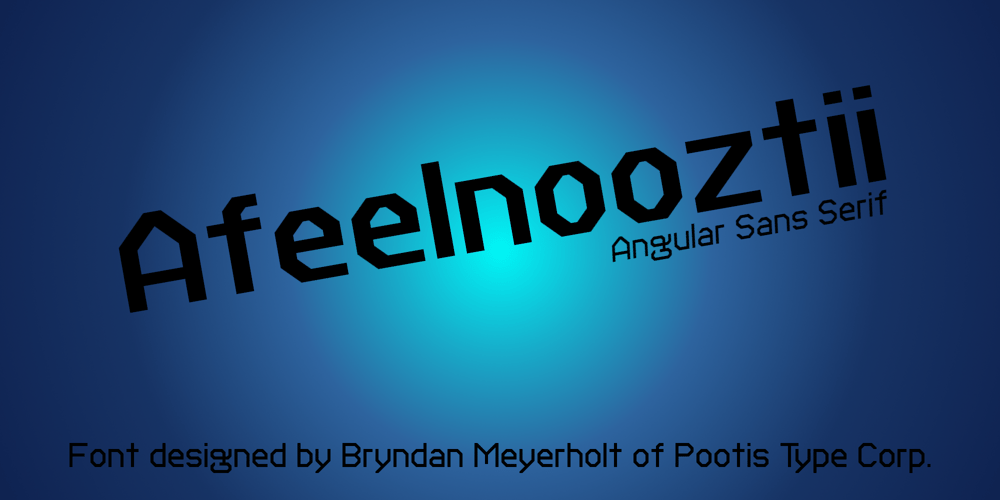
Afeelnooztii Font Family was designed by Bryndan Meyerholt and published by Pootis Type Corp.. Afeelnooztii contains 4 styles and family package options. Afeelnooztii is an angular sans serif font that is useful for all sort of projects, including: books, essays, games, posters, signs, videos, and more.The 7-segment characters and Arbitrary fraction characters are both allocated in the Private Use Area starting at U+E000 and U+E100 respectively.